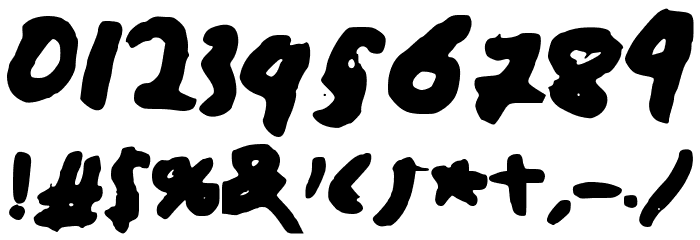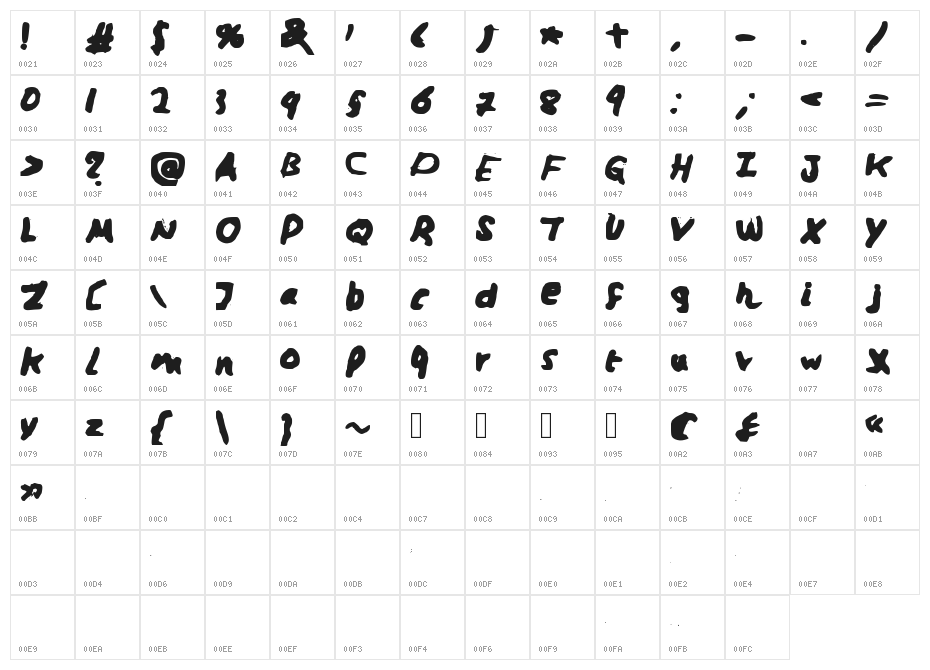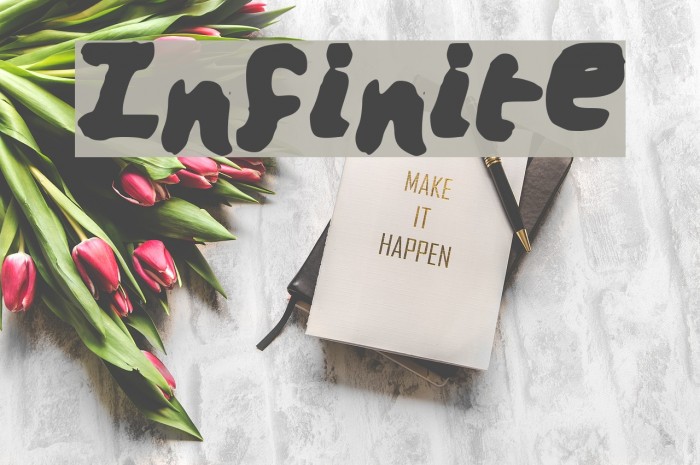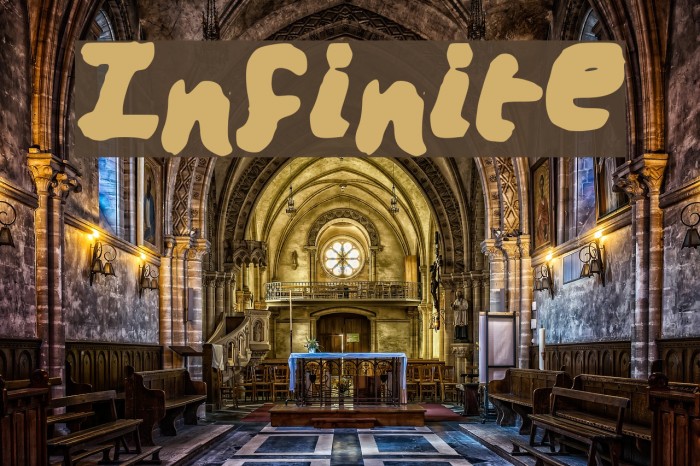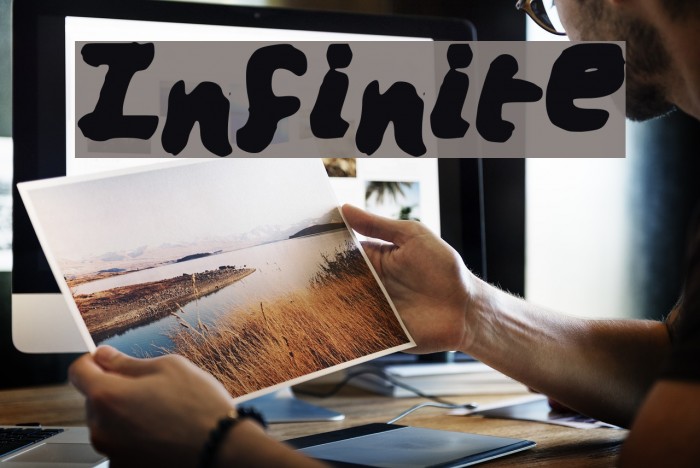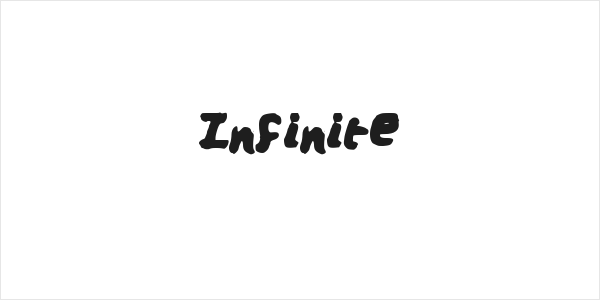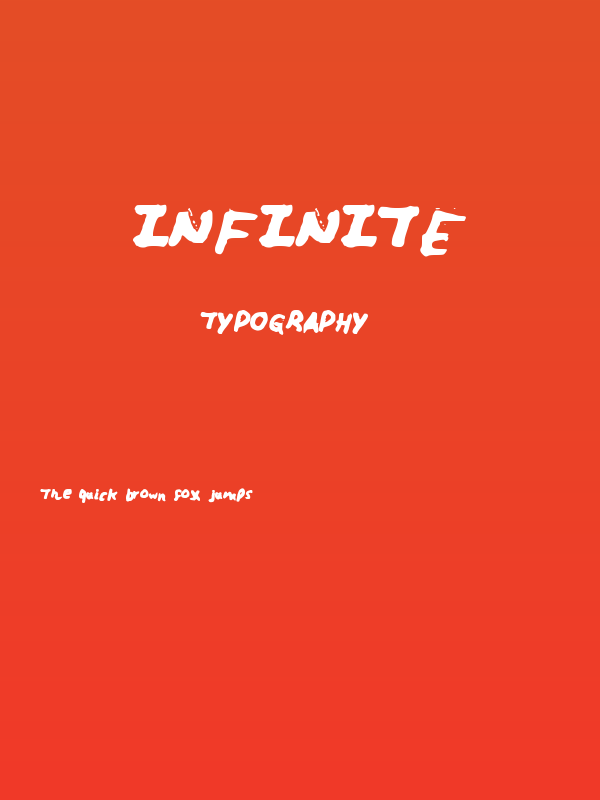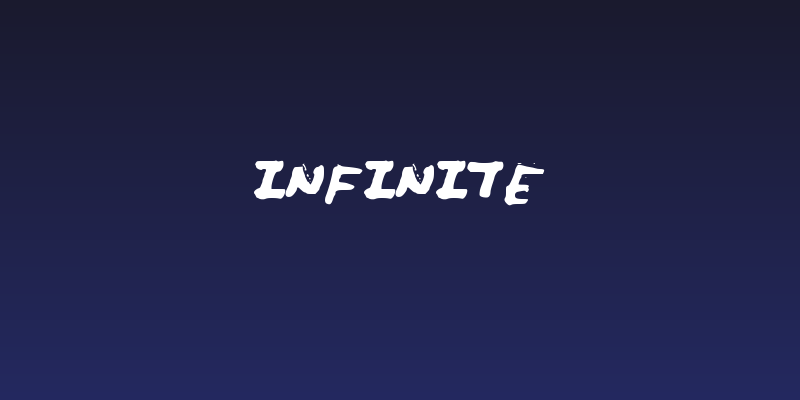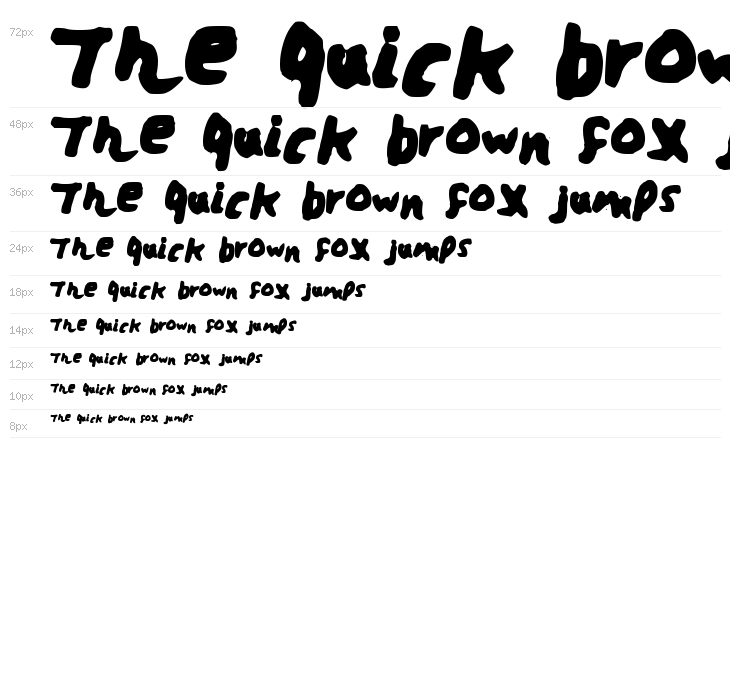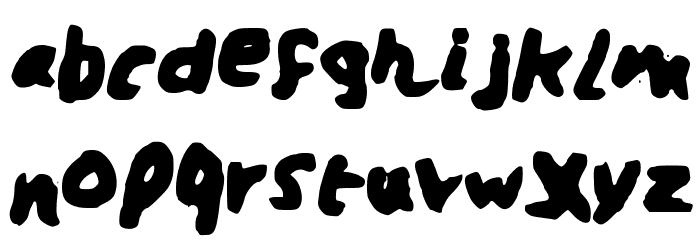
Infinite Font
Infinite Description
This font features a bold, expressive style with a hand-painted appearance. The characters are irregular and dynamic, giving a sense of movement and energy. The uppercase and lowercase letters maintain a consistent visual weight, while the numbers and special characters complement the overall design. The strokes are thick and varied, adding to the font's unique and artistic flair. This style is perfect for projects that require a personal touch or a bold statement.
| Proposed Projects | Ideal for artistic projects, posters, branding, and any design needing a bold, expressive touch. |